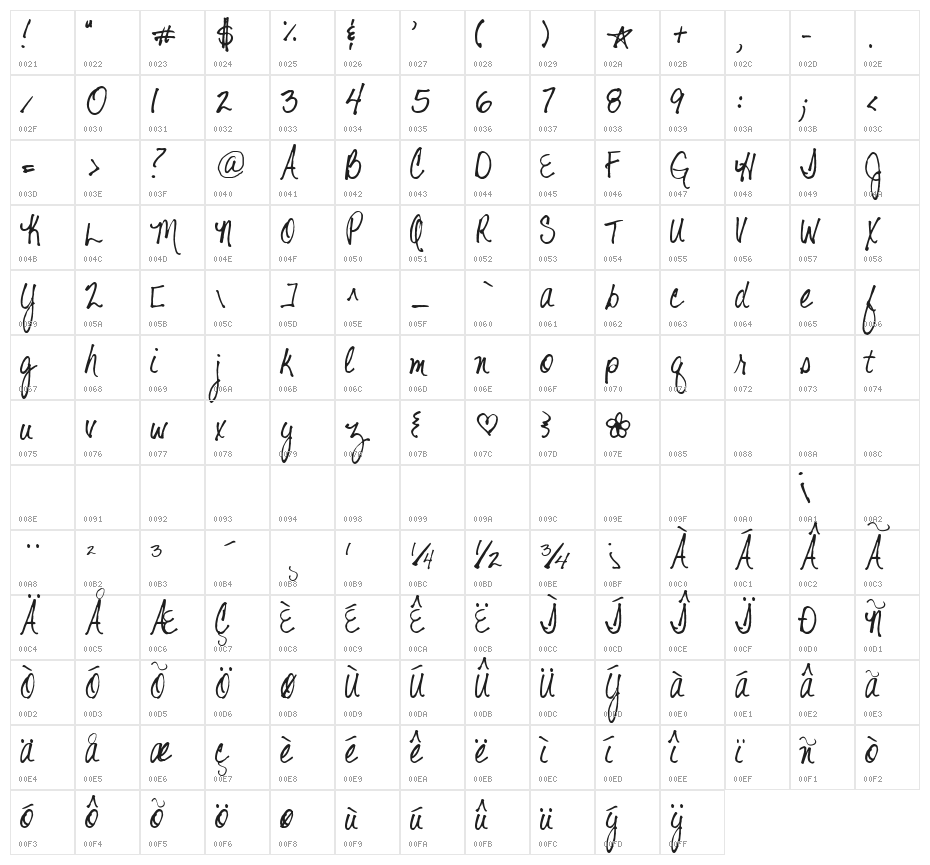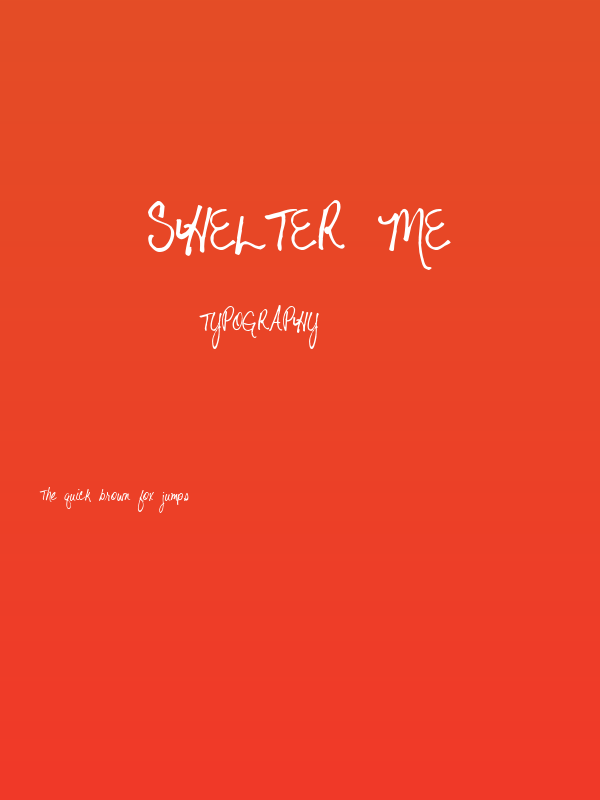
Shelter Me Font
Shelter Me Description
This font exudes a lively and energetic handwritten style, characterized by its bold and fluid strokes. The letters are crafted with a natural, free-flowing appearance, giving it a personal and informal touch. The uppercase letters are bold and slightly irregular, while the lowercase letters maintain a consistent flow, enhancing the handwritten feel. Numbers and special characters follow the same dynamic style, ensuring a cohesive look across all characters. The overall design is expressive and artistic, making it ideal for creative projects.
| Proposed Projects | Ideal for greeting cards, personal branding, artistic posters, and creative invitations. |